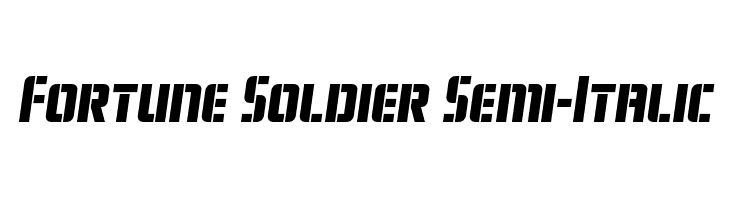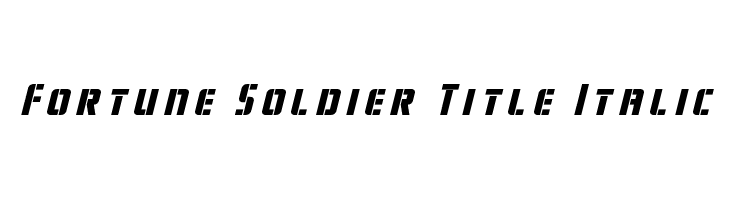
A bold, geometric stencil-style font with a modern, industrial look.
A bold, italicized font with a futuristic and dynamic style.
A bold, geometric stencil font with a modern, industrial style.
A bold, geometric font with a three-dimensional outlined style.
A bold, italicized font with a three-dimensional effect and strong visual impact.
A bold, semi-italic font with a strong, dynamic presence.
A bold, stencil-style font with geometric shapes and uniform thickness.
A bold, italicized stencil-style font with a futuristic and industrial aesthetic.